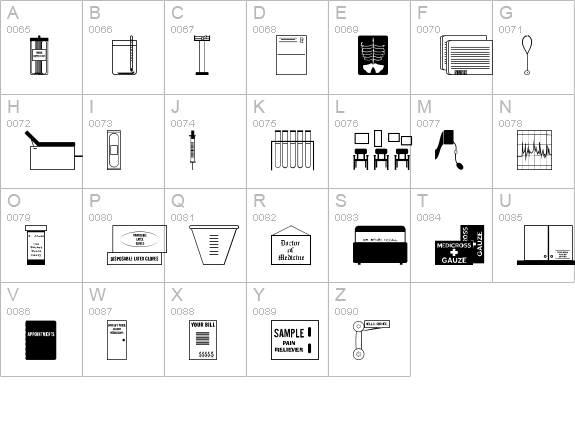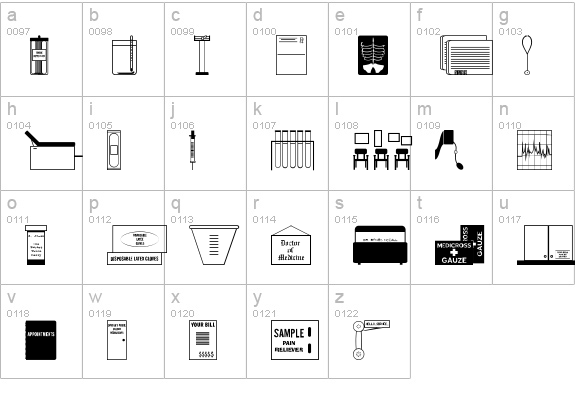
Doctor's Dings JL font is a fun and quirky typeface that is sure to add a unique touch to your design projects. This font features a collection of playful and whimsical dingbats that can be used to decorate headers, posters, invitations, and more. With its charming and distinctive characters, Doctor's Dings JL font is perfect for adding a touch of creativity and personality to your designs. Best of all, Doctor's Dings JL font is completely free to download at FontsMarket.com. Simply visit the website and start incorporating this delightful font into your projects today. Whether you're working on a personal project or a client's design, Doctor's Dings JL font is sure to impress with its fun and engaging style. Download it now and let your creativity shine with this fantastic free font!